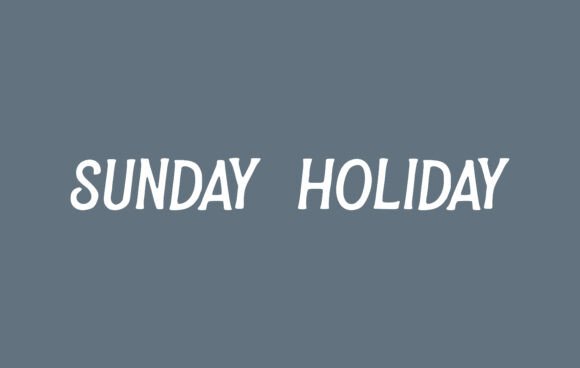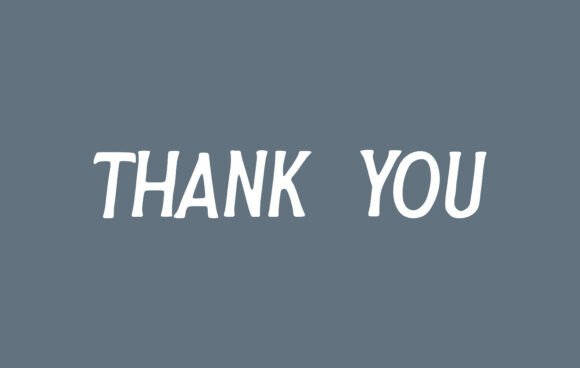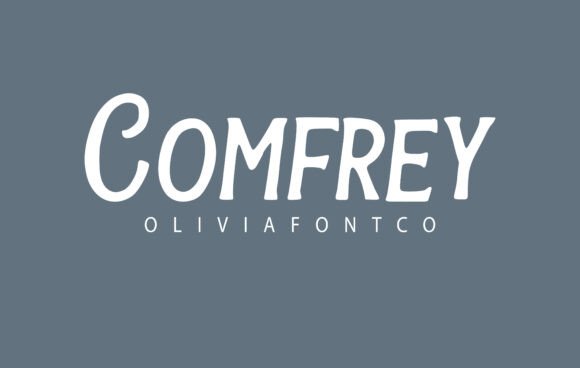
Introducing Comfrey Font: The Quirky Serif with a Handmade Feel
In the world of typography, fonts play a crucial role in shaping the identity of a brand or product. For designers and crafters looking for a unique and approachable character, Comfrey Font is an excellent choice. This quirky serif font boasts a handmade feel and irregular shapes that give it a distinctive, down-to-earth look with a creative edge.
What Makes Comfrey Font Stand Out?
Comfrey Font is designed to evoke a sense of artisanal charm and organic appeal. Its irregular shapes and serif details give it a one-of-a-kind personality that sets it apart from more traditional fonts. The handmade feel of Comfrey Font makes it perfect for brands and products that want to convey a sense of uniqueness and craftsmanship.
Ideal Uses for Comfrey Font
So, what are the ideal uses for Comfrey Font? Here are a few ideas:
- Artisanal Brands: Comfrey Font is perfect for artisanal brands that want to convey a sense of handmade quality and uniqueness. Whether you’re a small business or a large corporation, this font can help you establish a distinctive brand identity.
- Organic Product Packaging: For organic product packaging, Comfrey Font is an excellent choice. Its natural, down-to-earth feel makes it perfect for products that are eco-friendly, sustainable, and environmentally conscious.
- Creative Projects: Comfrey Font is also ideal for creative projects that require a unique and playful touch. Whether you’re designing a poster, a brochure, or a website, this font can add a touch of personality and whimsy to your design.
Key Features of Comfrey Font
So, what are the key features of Comfrey Font? Here are a few:
- Quirky Serif: Comfrey Font features a quirky serif design that gives it a unique and playful personality.
- Handmade Feel: The font has a handmade feel that makes it perfect for artisanal brands and organic product packaging.
- Irregular Shapes: Comfrey Font features irregular shapes that give it a distinctive and down-to-earth look.
- Creative Edge: The font has a creative edge that makes it perfect for designers and crafters who want to add a touch of personality to their designs.
Tips for Using Comfrey Font
Here are a few tips for using Comfrey Font:
- Use it for Headings: Comfrey Font is perfect for headings and titles. Use it to add a touch of personality and whimsy to your design.
- Pair it with Other Fonts: Comfrey Font can be paired with other fonts to create a unique and interesting design. Try pairing it with a sans-serif font for a bold and playful look.
- Experiment with Colors: Comfrey Font looks great in a variety of colors. Experiment with different colors and combinations to find the perfect look for your design.
In conclusion, Comfrey Font is a quirky serif font with a handmade feel and irregular shapes that give it a unique, approachable character. Its artisanal charm and organic appeal make it perfect for artisanal brands, organic product packaging, and creative projects. With its creative edge and playful personality, Comfrey Font is sure to add a touch of personality and whimsy to any design.
Get Ready to Add a Touch of Personality to Your Designs